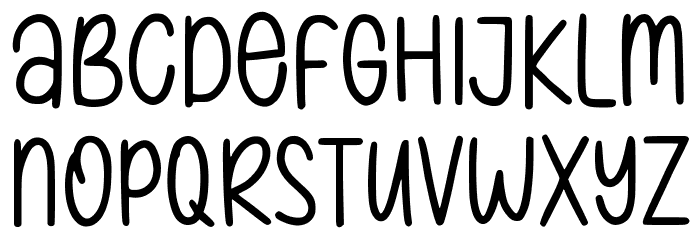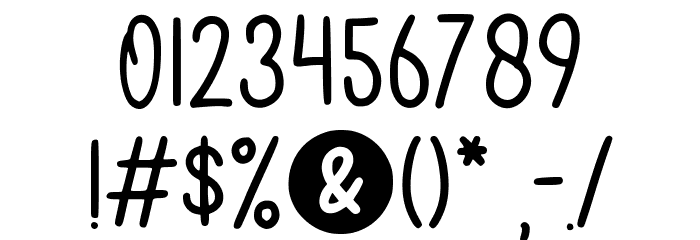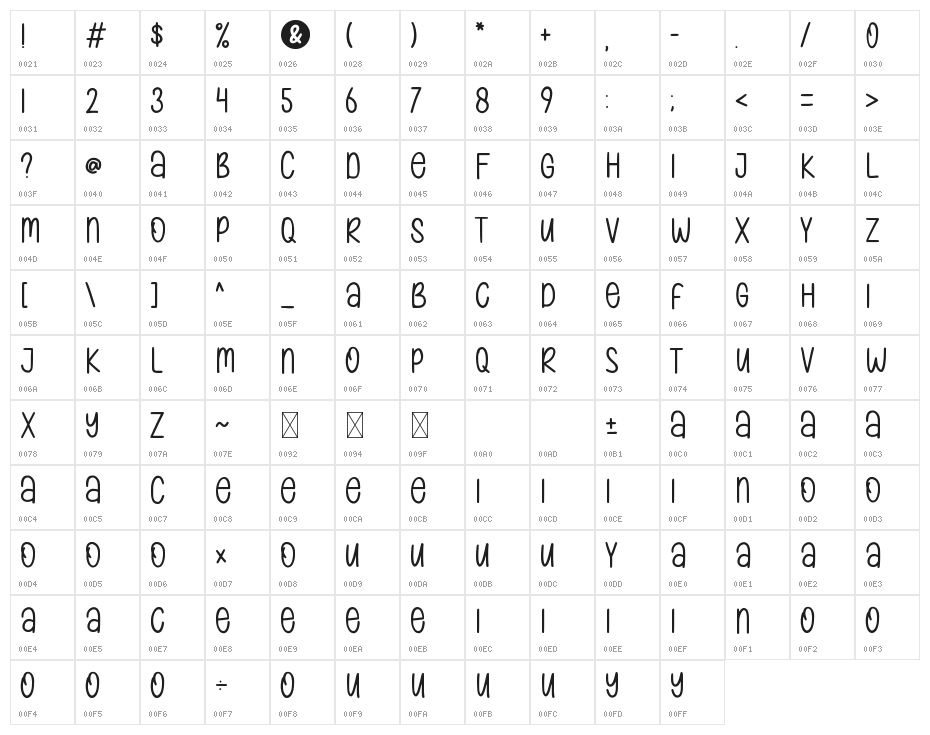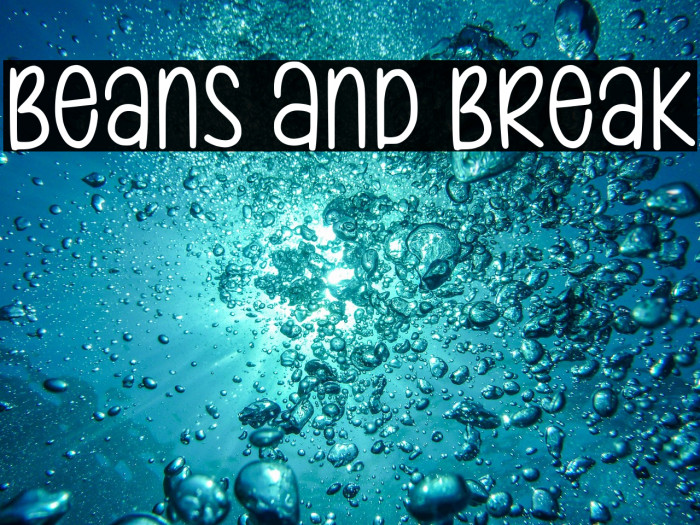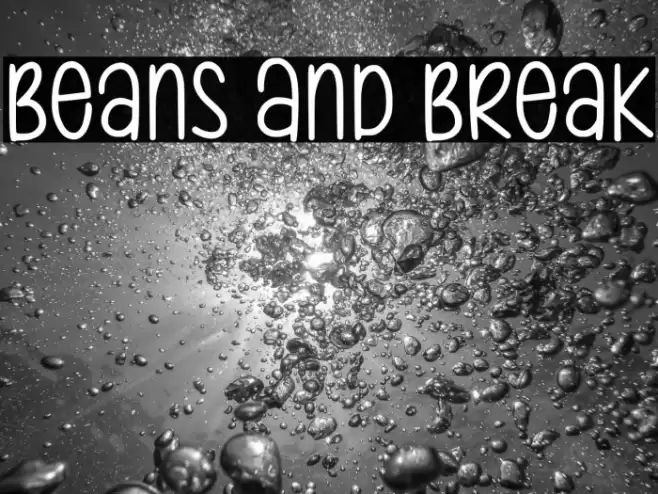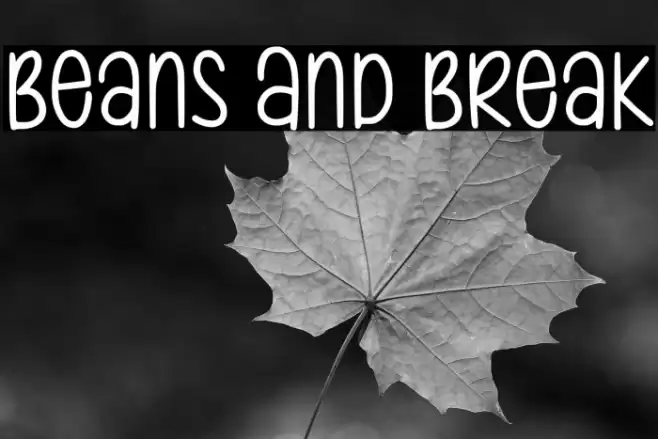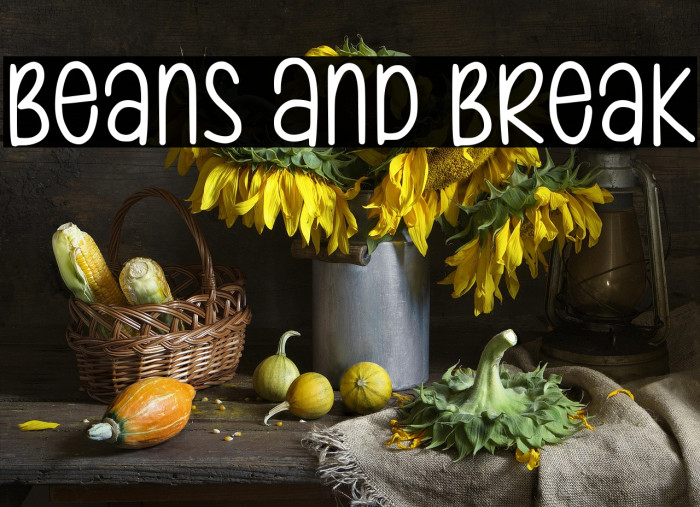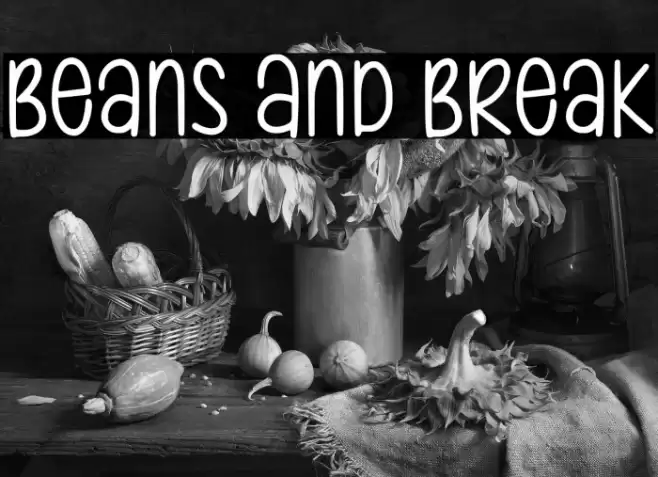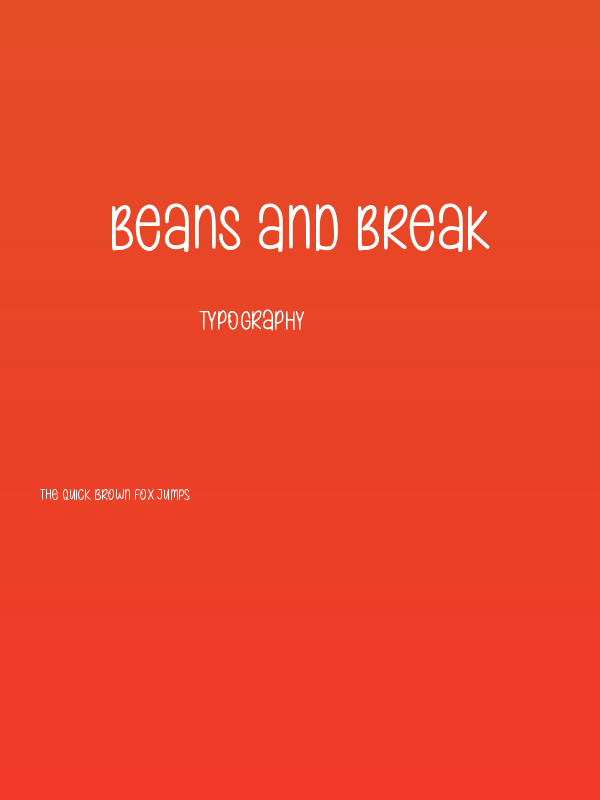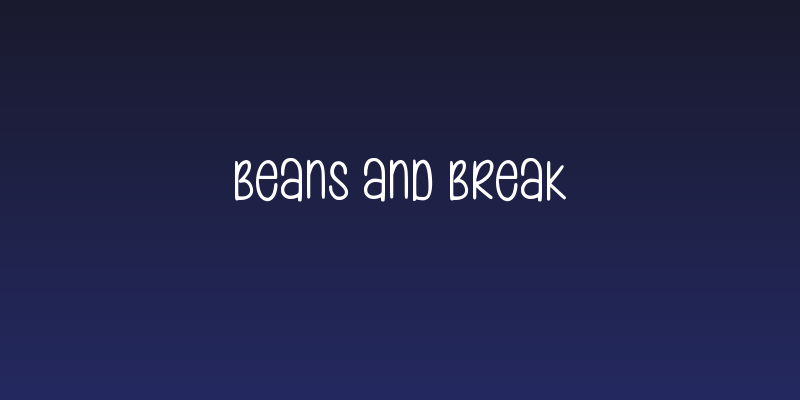
Beans And Break Font
This playful and whimsical font features rounded, smooth edges and a hand-drawn aesthetic that gives it a friendly and approachable feel. The characters are slightly elongated with a consistent stroke width, creating a uniform appearance across both uppercase and lowercase letters. The numbers and special characters maintain this cohesive style, making it versatile for various design needs. Its informal and casual nature makes it ideal for projects that require a personal touch or a fun, lighthearted vibe.
A playful, hand-drawn font with rounded edges and a friendly style.
- Font: Beans And Break
- Proposed Projects: Great for children's books, greeting cards, playful branding, and social media graphics.
- Category: Handwritten
- Overall Style: Casual
- Use Case: Headlines, Logos, Informal Text